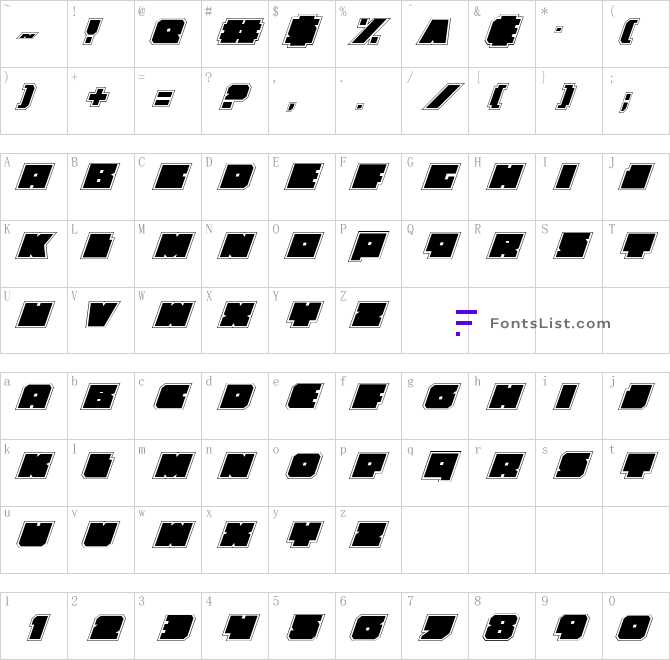
- Font Name:Anakefka Academy Italic
- Subfamily:Anakefka Academy Italic: 2009
- Full Name:Anakefka Academy Italic
- PostScript:AnakefkaAcademyItalic
Anakefka-Academy-Italic.ttf is a very beautiful artistic font, Anakefka-Academy-Italic.ttf is widely used in the design and printing of various books and pictures,Anakefka-Academy-Italic.ttf has a strong visual impact,Anakefka-Academy-Italic.ttf is a commonly used font in newspapers, magazines and books, and is used in posters, e-commerce Poster design, store design, logo design, font design and other fields.Anakefka-Academy-Italic.